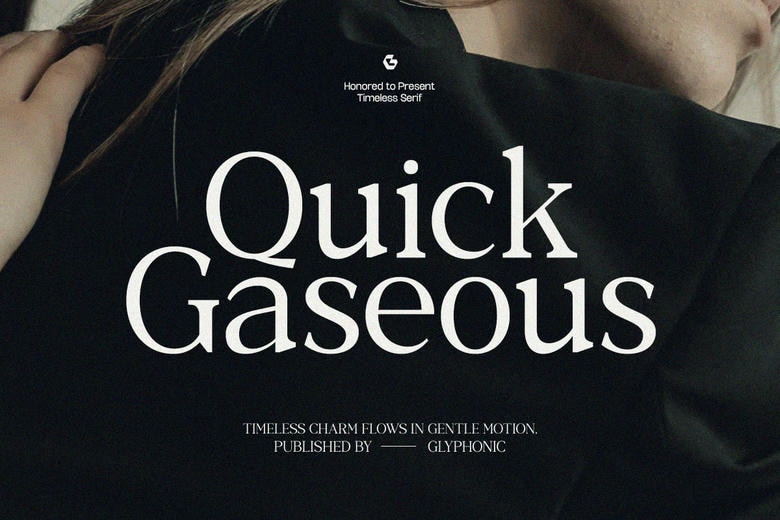
Quick Gaseous Font
GC Quick Gaseous – Elegant Serif is an elegant serif typeface designed to be both classical and stylish at the same time. With smooth lines, harmonious lines and beautiful contrasts, it provides a unique voice that is smooth throughout the digital and print media. It is directed towards being beautiful, unintelligible, thus it is perfect in branding, editorial layouts, packaging, invitations and refined visual identities.
Its harmonious composition and accurate detailing make GC Quick Gaseous easy to modify though preserving its character. Be it in creating sleek headlines, elegant posters or sophisticated brand expressions, this font will add eternal beauty, eloquence and sophistication to your typography.
Quick Gaseous Serif Font